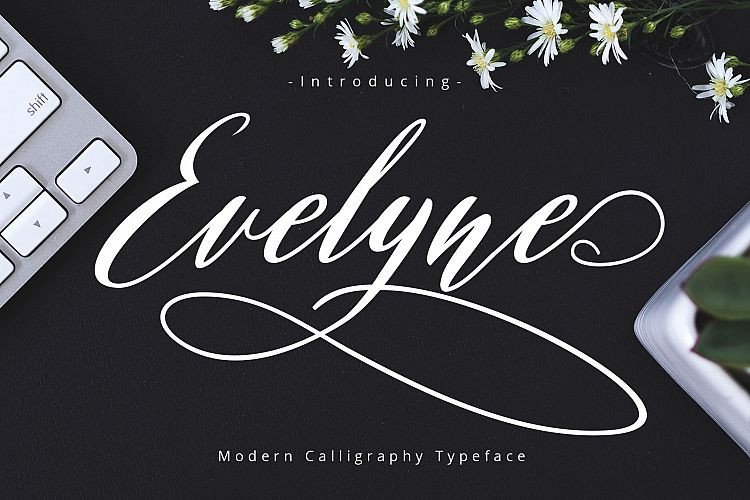
Evelyne Script Font
Hello world..!! Introducing Evelyne Font! Inspired by calligraphy style and combination with handwriting style. It’s designed and shared by Analogous. Evelyne Script Font with the kind of modern hand scratches, I hope you are interested in this font, if you want to use for your work this font can be used easily and simply because there are a lot of features in it to contain a complete set of letters lower and uppercase letters, assorted punctuation, numbers, and multilingual support. font also contains several ligatures and alternate style Stylistic Sets for those of you who have software that is able to work OpenType (Photoshop / Illustrator / InDesign).
Evelyne script is suitable use for market design developed at this time, this font has a model Trendy, natural and gentle, with this font you can take advantage of the opportunity in every moment of one wonderful way to highlight the celebration of the feast of your best, because this font will be advocates for purposes such as wedding invitations, party, graduation, birthday, gathering, etc.